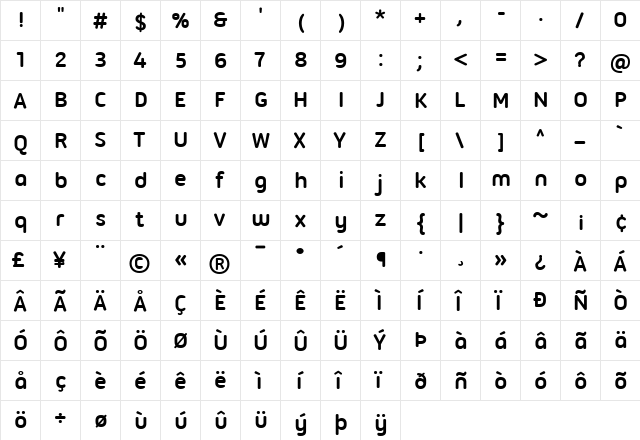
Ubuntu Titling Bold
| Designer | Betatype |
Design Context for Ubuntu Titling Typeface
Ubuntu Titling takes a measured approach to typography — its balanced proportions and neutral character make it a reliable workhorse for both digital and print work. The heavy weight commands attention and anchors typographic hierarchies.